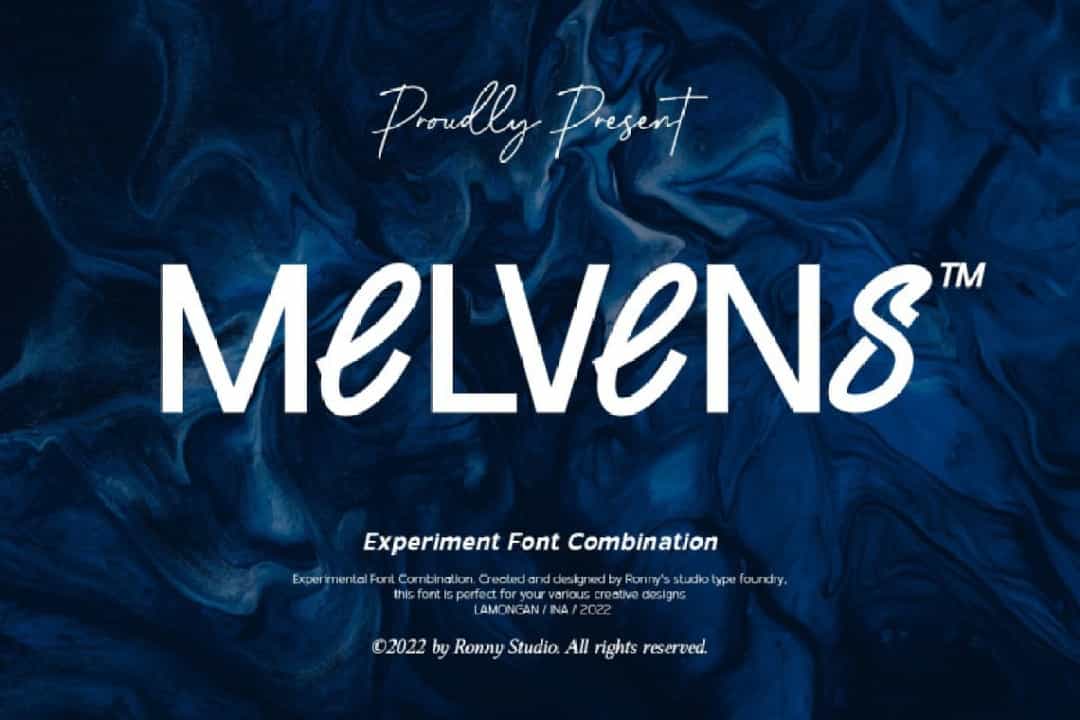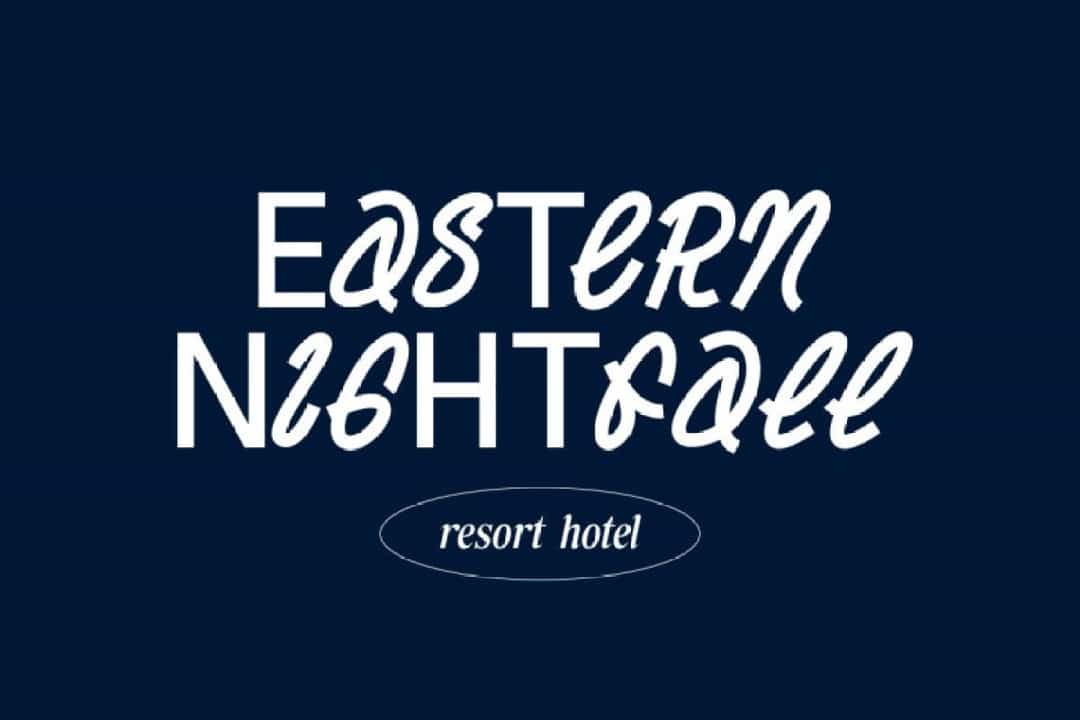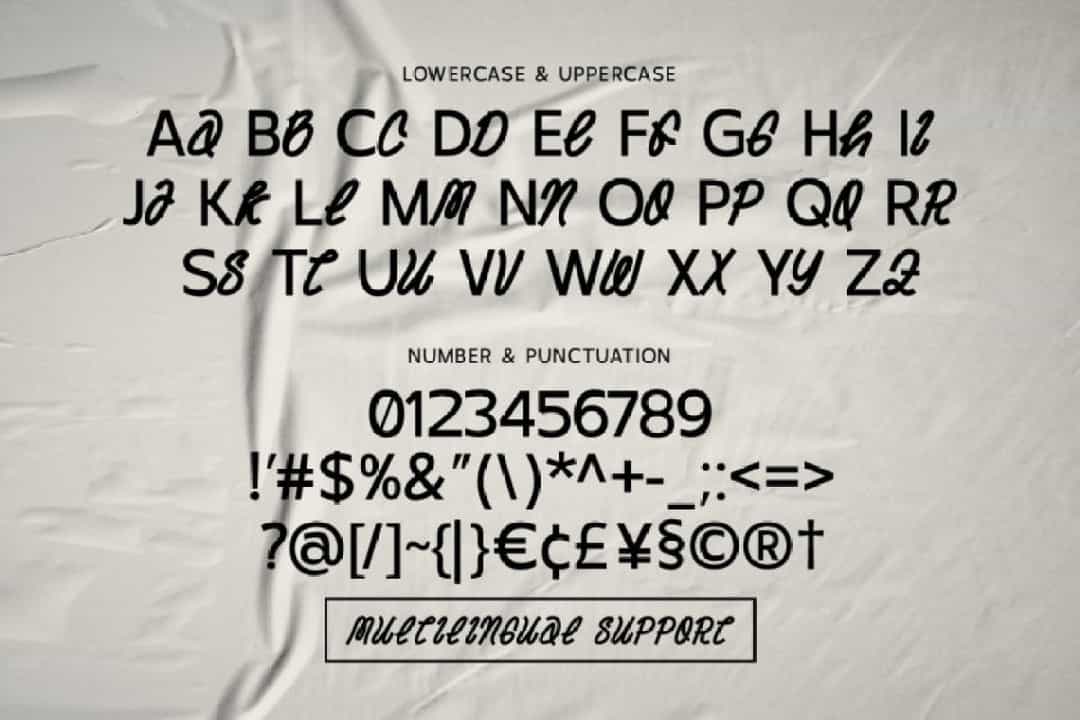
Melvens is an untested combination font. Comprised of two fonts with distinct styles and looks that blend in harmoniously, the font stands out among its peers. Perfect for posters, branding logos social media magazines books etc.